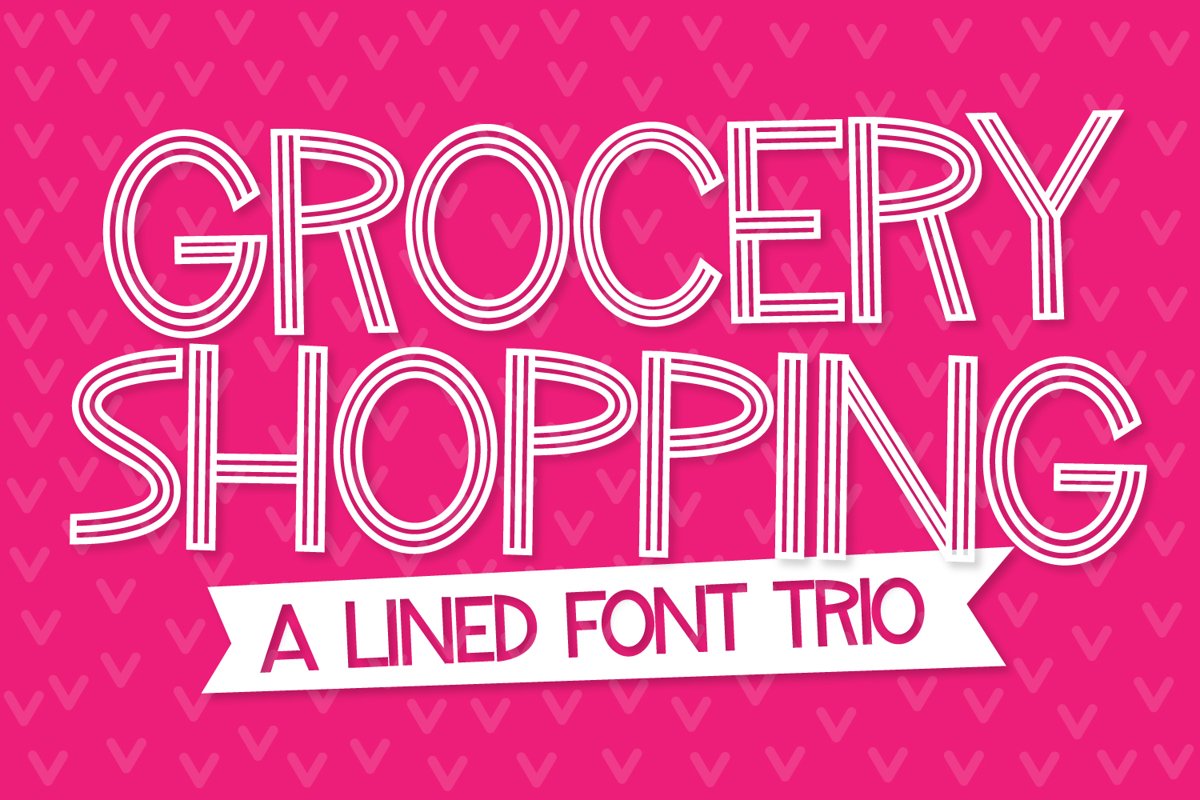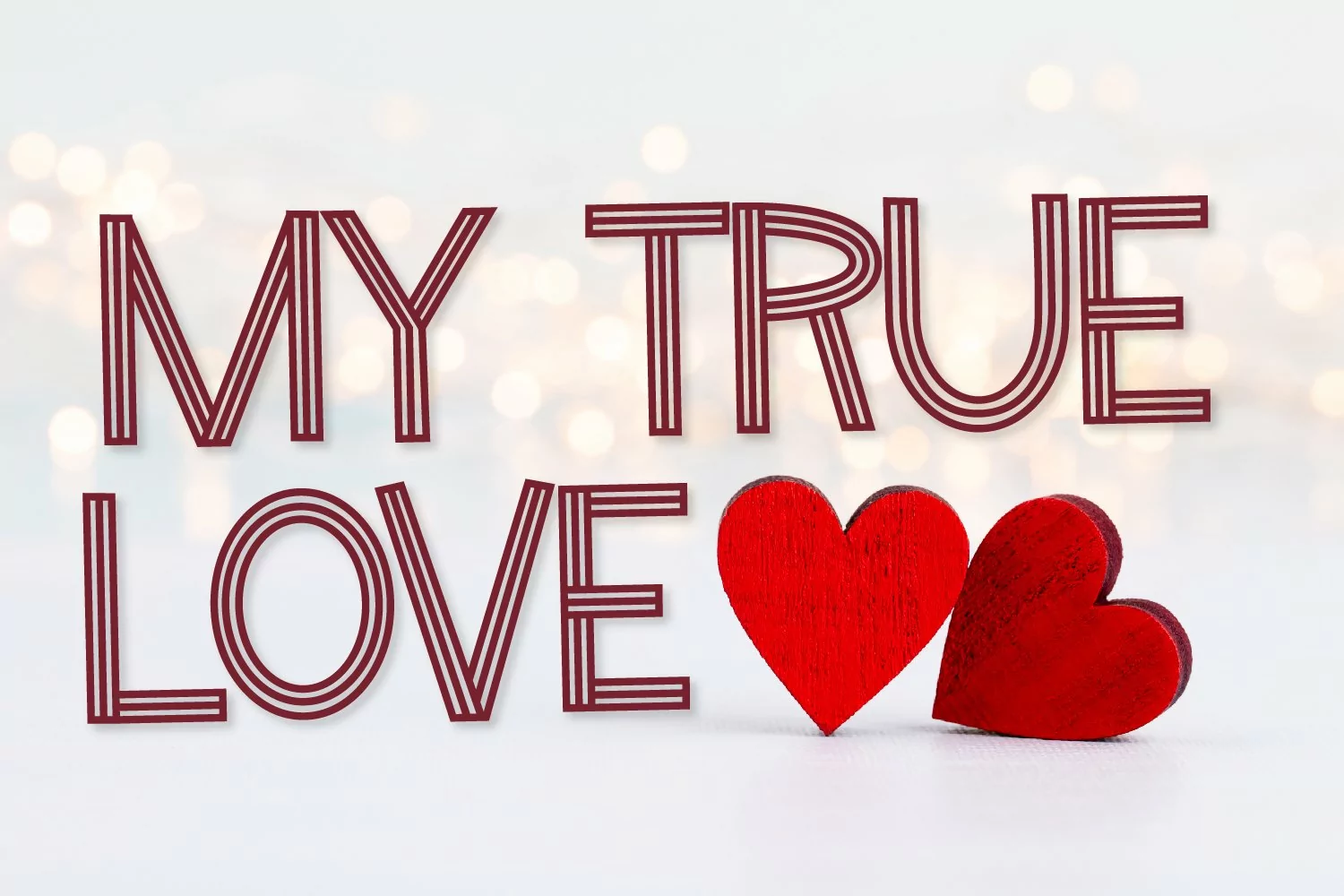
There is a "base" version without lines - Another fill version with the lines already hollowed out - And a last version of just the inside lines so that the font can be layered over the base version to create a layered look.